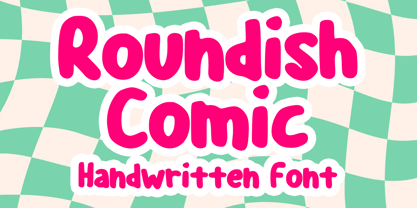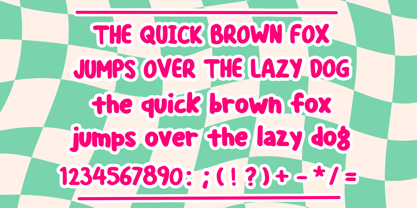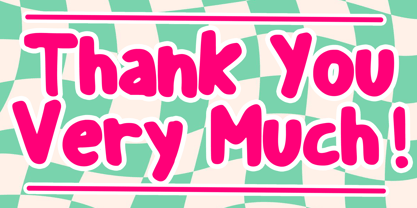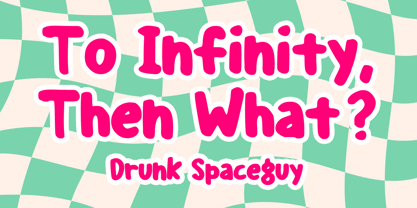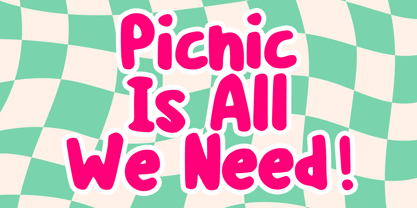
Roundish Comic
by Mvmet
The Roundish Comic Font Family was designed by Gabriel Valentinus and published by Mvmet. Roundish Comic contains 1 styles.
Unleash your creativity with Roundish Comic, a whimsically rounded comic cartoon display font. Inspired by the vibrant world of comics and animated films, this font infuses a lively twist into your projects. Perfect for a variety of applications including t-shirt designs, engaging book covers, heartwarming greeting cards, playful stickers and posters, or charming packaging. Whenever you need a relaxed, casual vibe, Roundish Comic is your ideal choice. Experience its remarkably versatile style and let it inspire your most delightful designs!
Designers: Gabriel Valentinus
Publisher: Mvmet
Foundry: Mvmet
Design Owner: Mvmet